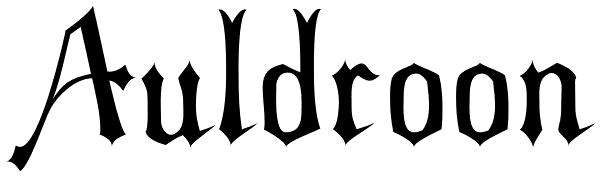
Auldroon
Auldroon was inspired by the pseudo-medieval fonts that were fairly popular in the late 19th century.
Auldroon Eld
Auldroon Eld Font
Auldroon
Auldroon Font